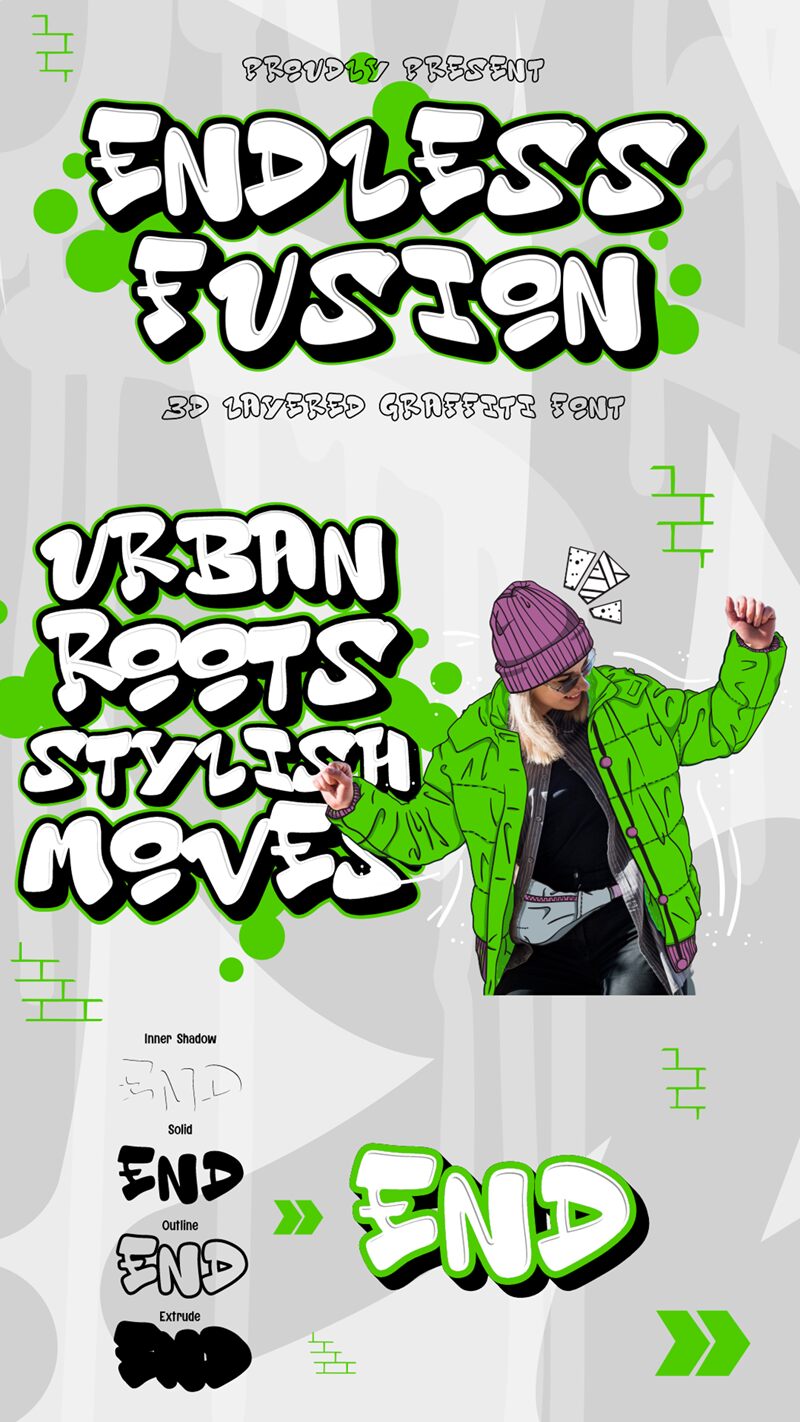
Endless Fusion font family, designed by Cikareotype Studio, captures the raw essence of graffiti art. This font family breathes life into each character with dynamic, bold outlines and an assertive presence. Embodying the vibrant and energetic nature of graffiti, it effortlessly brings a touch of urban flair to every design. The style is expressive and contemporary, influenced by modern street art, all while retaining a youthful, invigorating spirit.
Experience its diversity across various design projects including posters, music album covers, event invitations, apparel design, product packaging, movie titles, book covers, and business cards. Use it for magazine layouts, digital illustrations, or promotional materials to resonate deeply with a youthful, energetic audience.